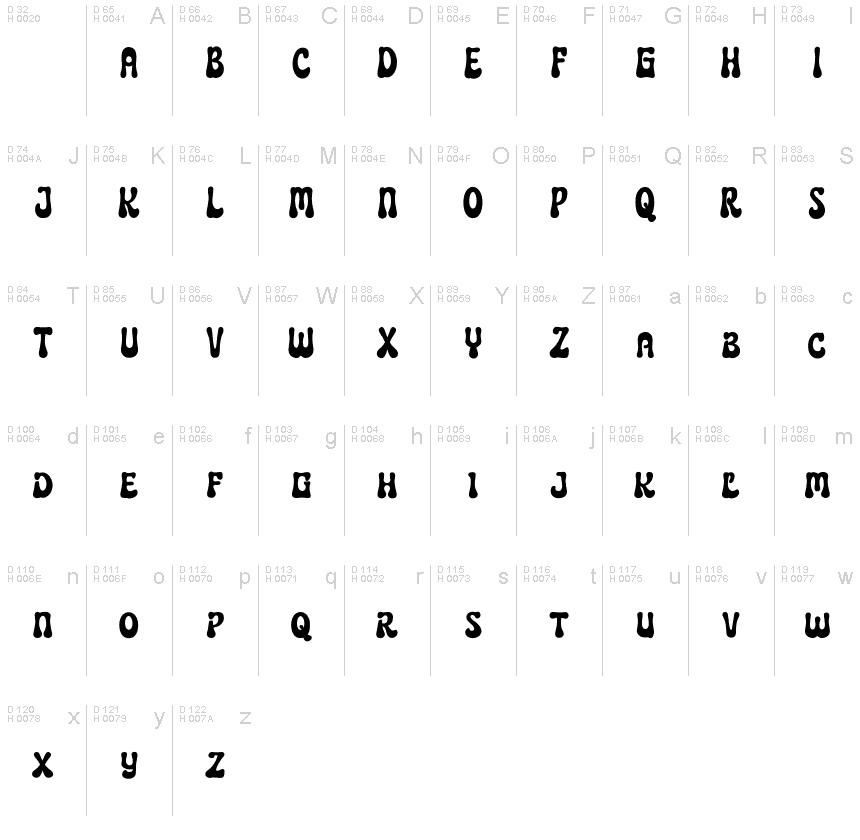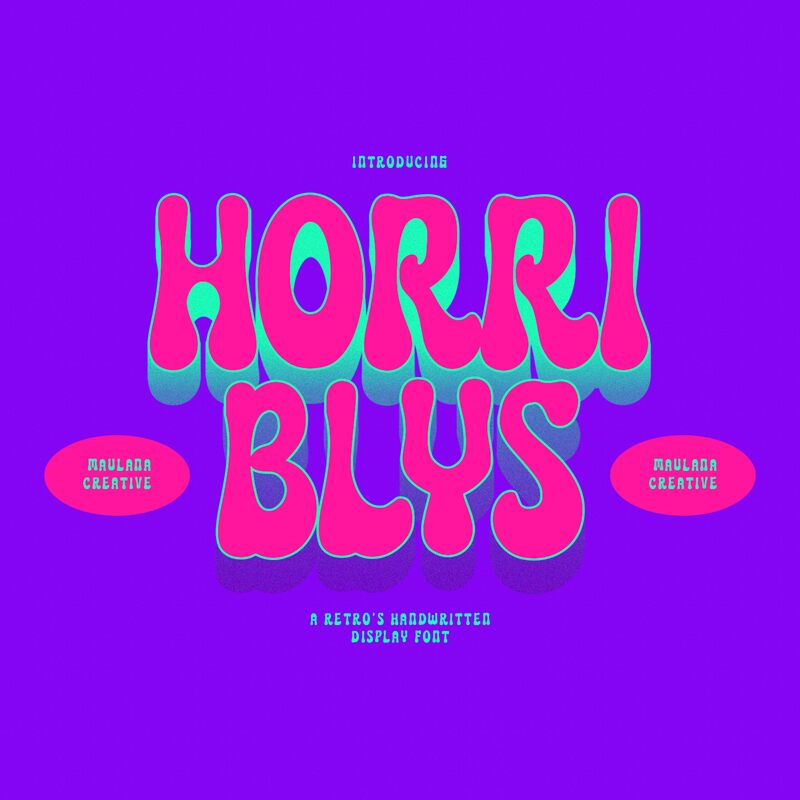
Horriblys Free Regular
Horriblys, a groovy and bold display font designed by Maulana Creative, is a perfect choice for projects that aim to stand out. Its playful and eye-catching style adds a touch of retro charm to any design. With its bold weight, Horriblys is ideal for creating attention-grabbing headlines, logos, posters, and album covers. Whether you're working on a vintage-inspired branding project or a funky 70s-themed event invitation, Horriblys will bring an energetic and vibrant vibe to your designs. Let your creativity flow with this unique typeface that exudes personality and style.